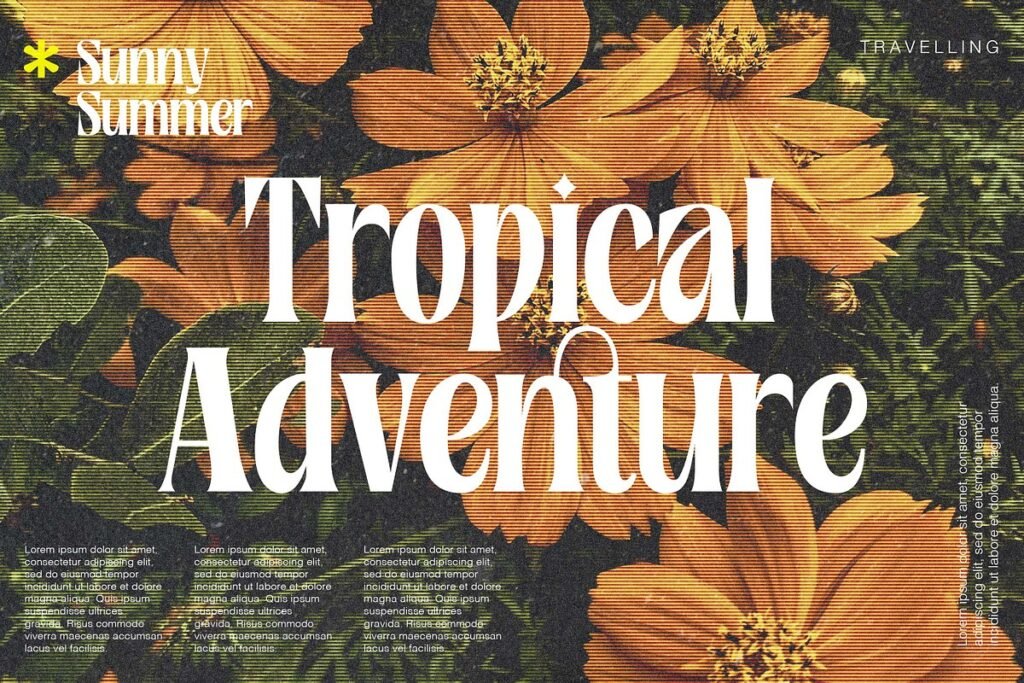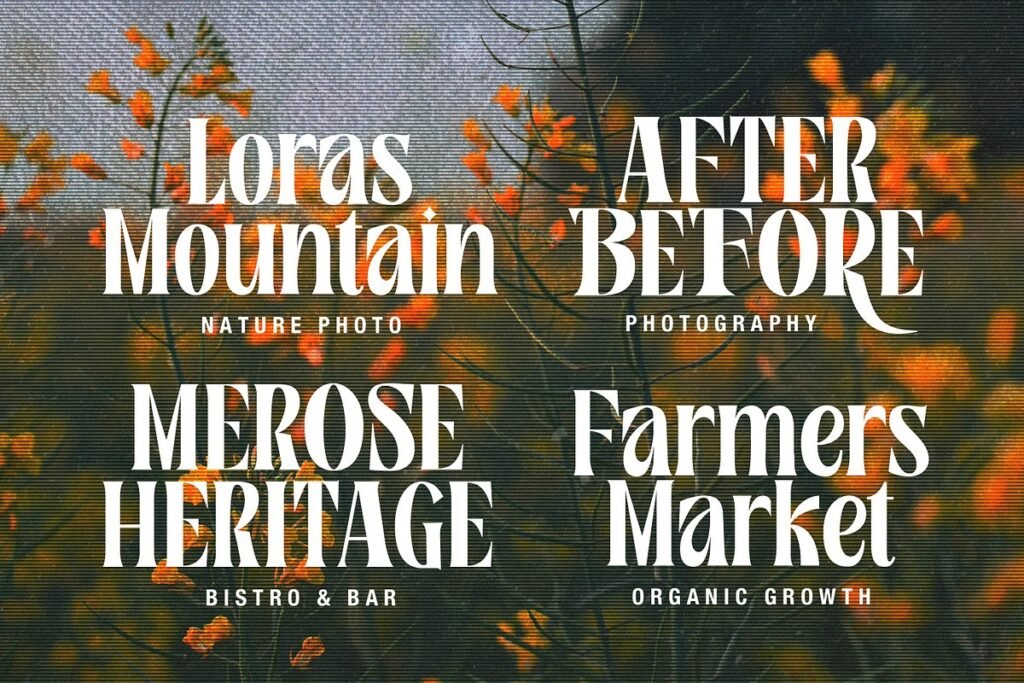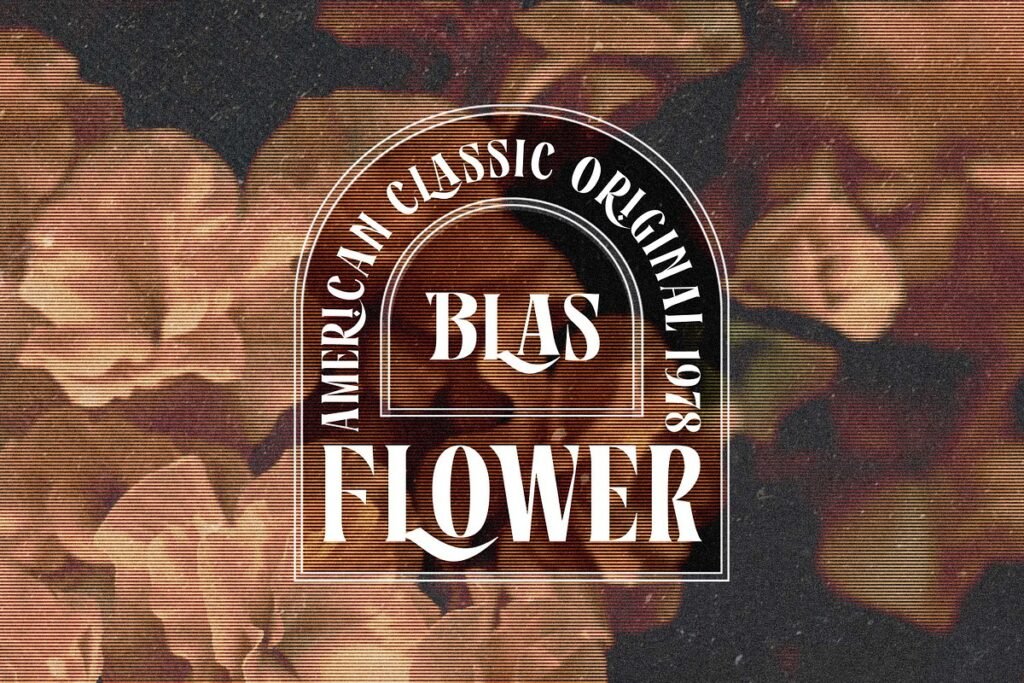
As I explore the world of typography, I find that the Rosamila Display Font stands out. It’s elegant and versatile. The Distinctive Charm of Rosamila.
Rosamila’s charm comes from its ability to add luxury design. Its refined typography makes it stand out. It’s a display font that grabs your attention with its elegant letters.
The typography of is carefully crafted to provide a luxurious feel. It’s perfect for high-end branding and design. Using Rosamila in my work adds a touch of sophistication, making the design better.
Rosamila is special in the world of display fonts. Its beautiful lettering and sophisticated typography are great for luxury and elegance. It makes designs visually appealing.
Exploring the Rosamila Display Font Features
The Rosamila Display Font is a top pick for designers. It offers advanced typography features. This makes it perfect for many projects.
Advanced Typography
The font has lots of characters, ligatures, and alternates. These features let designers get the exact look they want. It’s great for logos, titles, and more.
Designers can customize the font to fit their needs. It has many typography options. This lets designers try out different styles and layouts.
Using the Rosamila Display Font, designers can make their work stand out. It’s great for creating designs that look good and professional. The font’s features help make a project look its best.
Perfect Applications for Rosamila in Your Projects
The Font is very flexible. It works well for many branding and design tasks. Its elegant look can make different design parts look better.
Effective Design Applications
Rosamila Display Font is great for design applications needing a bit of class. This includes logos, business cards, and ads. Using this font in your work can make your materials look good and professional.
It’s perfect for branding or making promotional stuff. Rosamila Display Font is versatile. It’s good for many creative tasks, like editorial design or digital marketing.
Designers can use Rosamila Display Font to make things look the same everywhere. This helps make the brand more known and clear. The font’s elegance and class are perfect for projects needing to look professional and attractive.
Adding Rosamila to Your Design Collection
I highly recommend adding Font to your design collection. It’s perfect as a title font because of its elegance and sophistication. It will make your projects look better.
With Rosamila, you can make stunning designs that grab attention. It has advanced features and is versatile. This makes it great for many creative projects.
Adding Rosamila to your collection will improve your typography. It will take your designs to the next level. Rosamila Display Font is unmatched as a title font. It will definitely make your designs better.